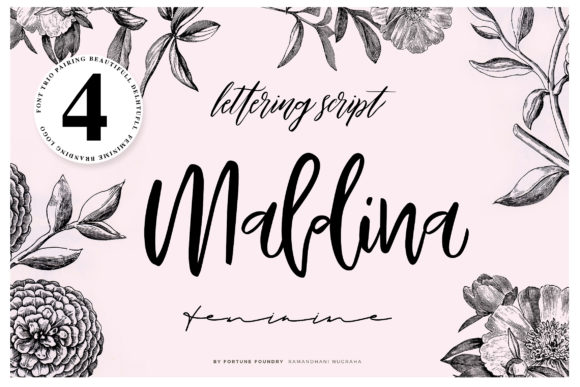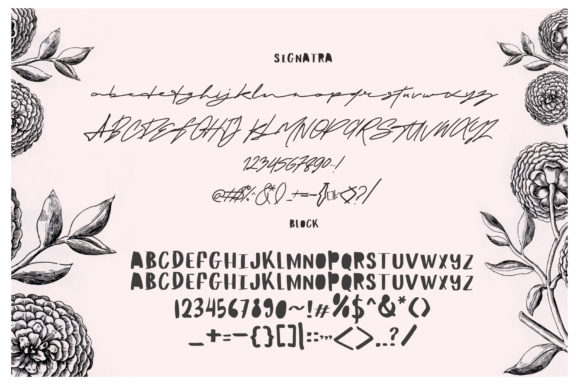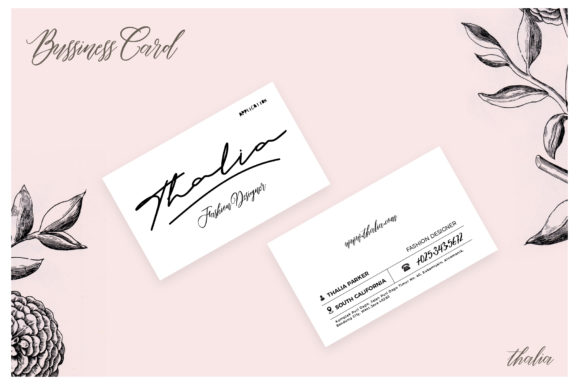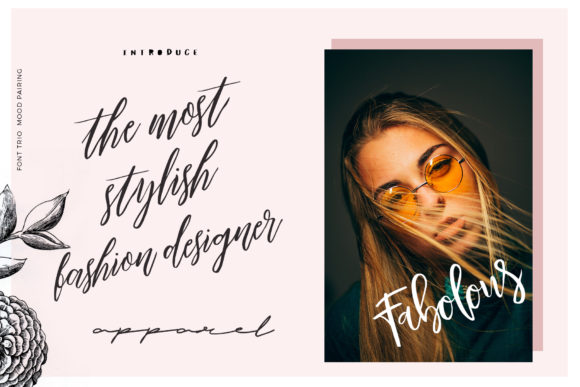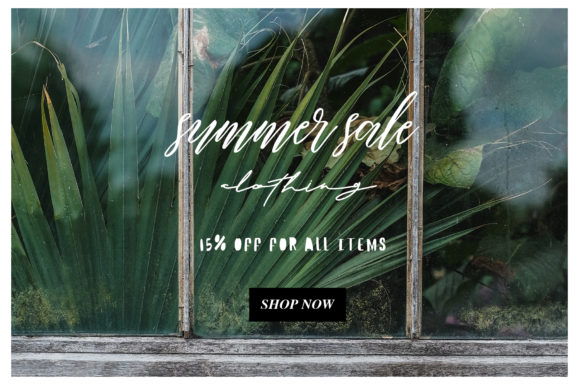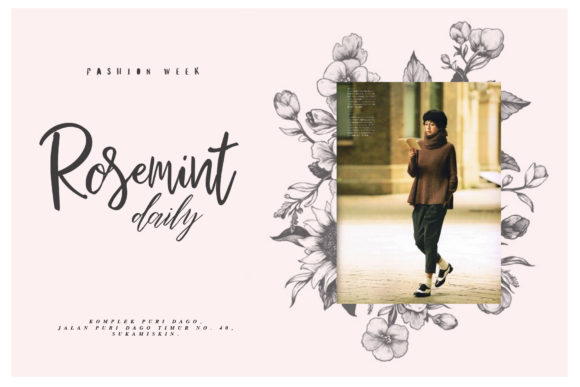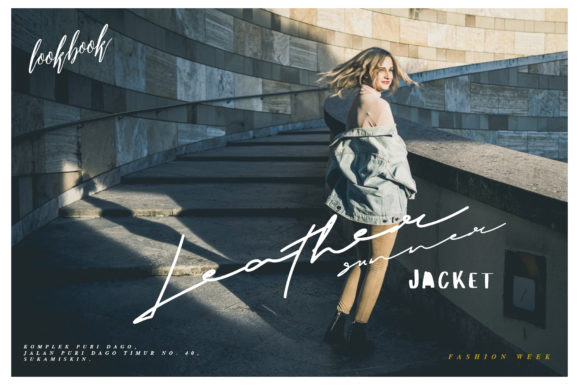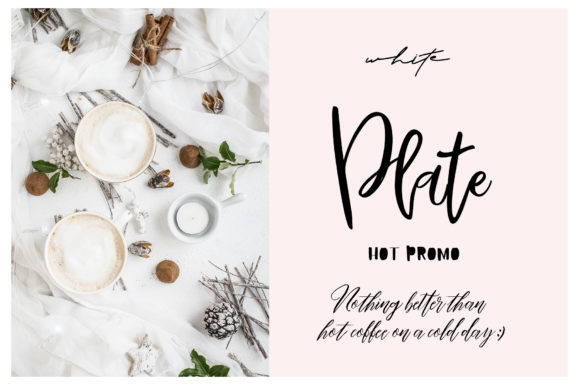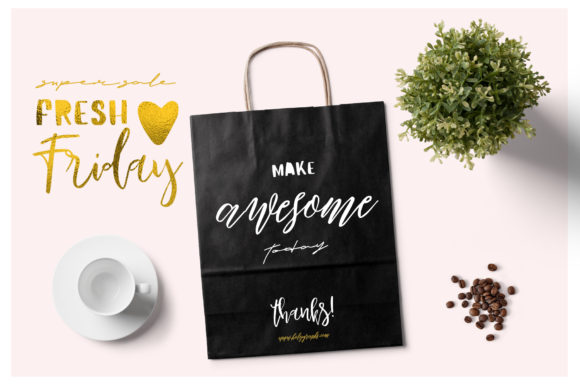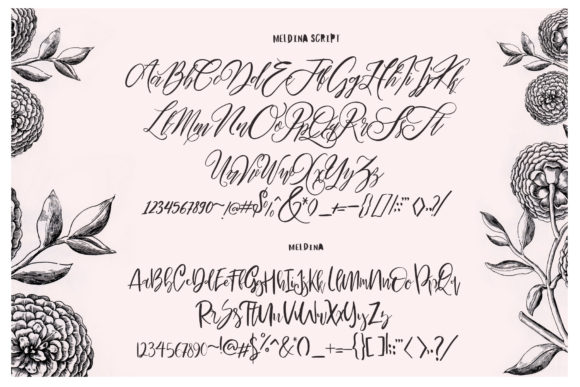
Maldina Font
About Maldina Font
Maldina is a gorgeously handmade script font that will turn any design project into a true standout. Get inspired by its romantic charm, and the included Bonus Files!